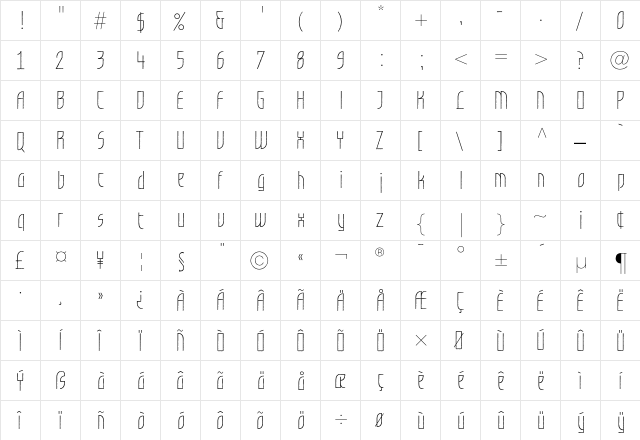
GrafiloneLLLight Regular
Design Context for GrafiloneLLLight Typeface
GrafiloneLLLight takes a measured approach to typography — its balanced proportions and neutral character make it a reliable workhorse for both digital and print work. The delicate stroke weight brings airiness and refinement to layouts.